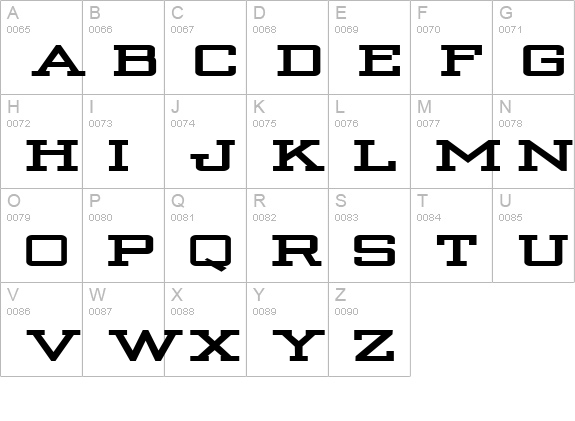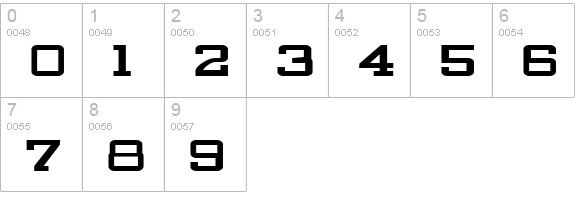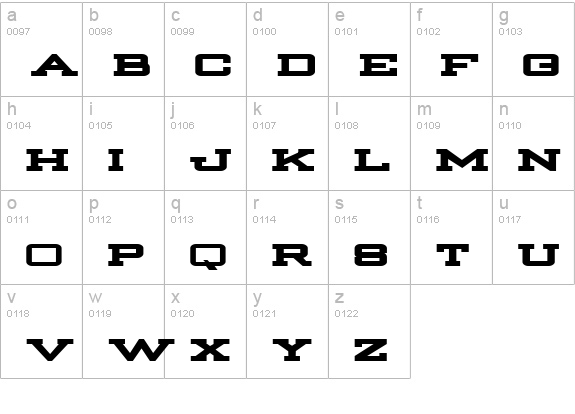
Strongman Bold is a strong, high-contrast variant in the Strongman typeface family \xE2\x80\x94 well suited to headlines, attention-grabbing titles, and strong calls-to-action.
Introducing Strongman Bold font - a robust and powerful typeface that exudes strength and confidence. Its bold strokes and sturdy letterforms make a bold statement in any design project. Perfect for headlines, logos, posters, and more, Strongman Bold commands attention and leaves a lasting impression. What's even better is that Strongman Bold font is completely free to download at FontsMarket.com. Whether you're a graphic designer, a brand manager, or a creative enthusiast, this unique font is a valuable addition to your font library. Don't miss out on the opportunity to elevate your designs with the commanding presence of Strongman Bold. Download it now and unleash the strength of your creativity.